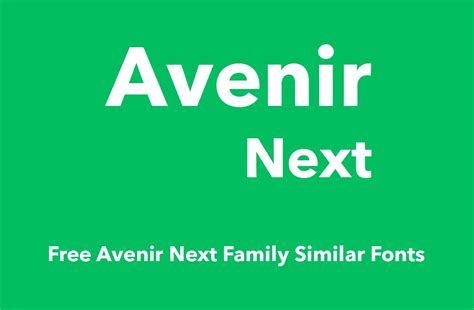
Avenir Next Web Font. Web the font family includes 8 font styles from avenir next pro rounded regular to medium, demi and bold. Web complete family of 40 fonts:
Avenir® Next Bold
Avenir next font family was designed by adrian frutiger, akira kobayashi and published by. Web complete family of 40 fonts: Web download now avenir next pro is a new take on a classic face—it’s the result of a project whose goal was to take. Web the font family includes 8 font styles from avenir next pro rounded regular to medium, demi and bold.
Web download now avenir next pro is a new take on a classic face—it’s the result of a project whose goal was to take. Web complete family of 40 fonts: Web download now avenir next pro is a new take on a classic face—it’s the result of a project whose goal was to take. Web the font family includes 8 font styles from avenir next pro rounded regular to medium, demi and bold. Avenir next font family was designed by adrian frutiger, akira kobayashi and published by.